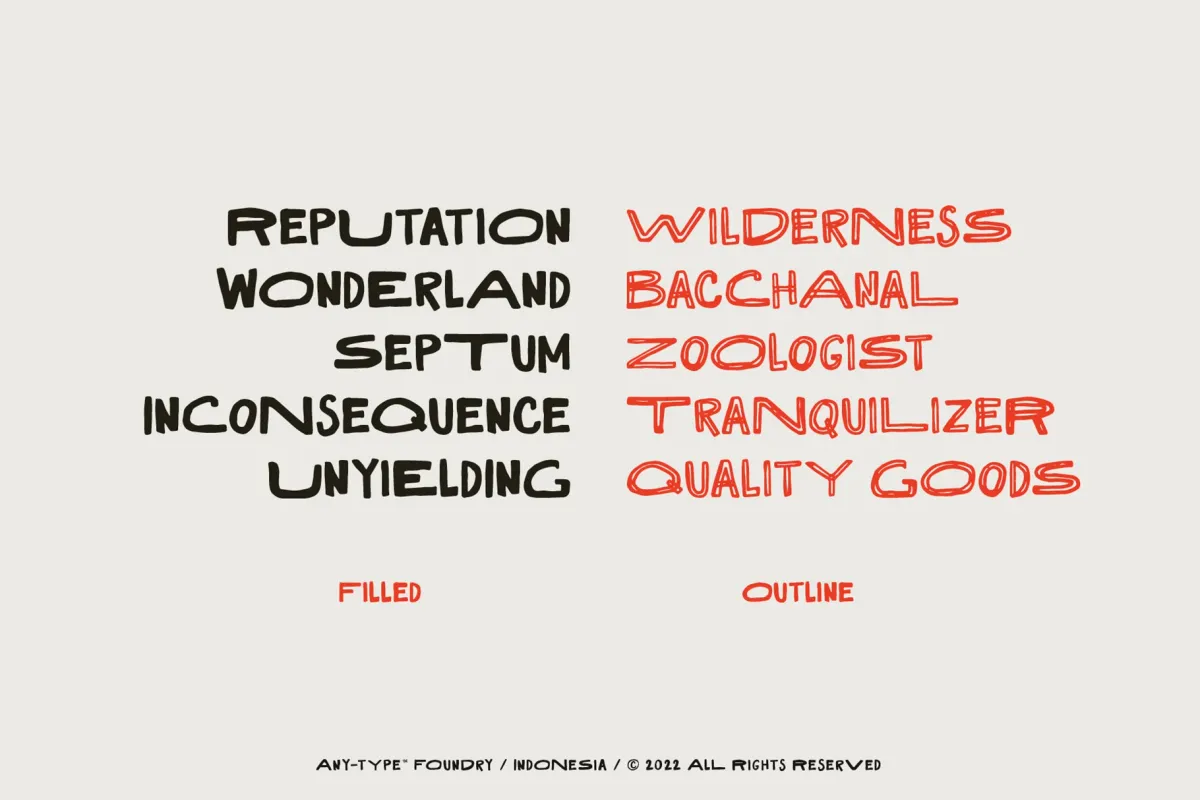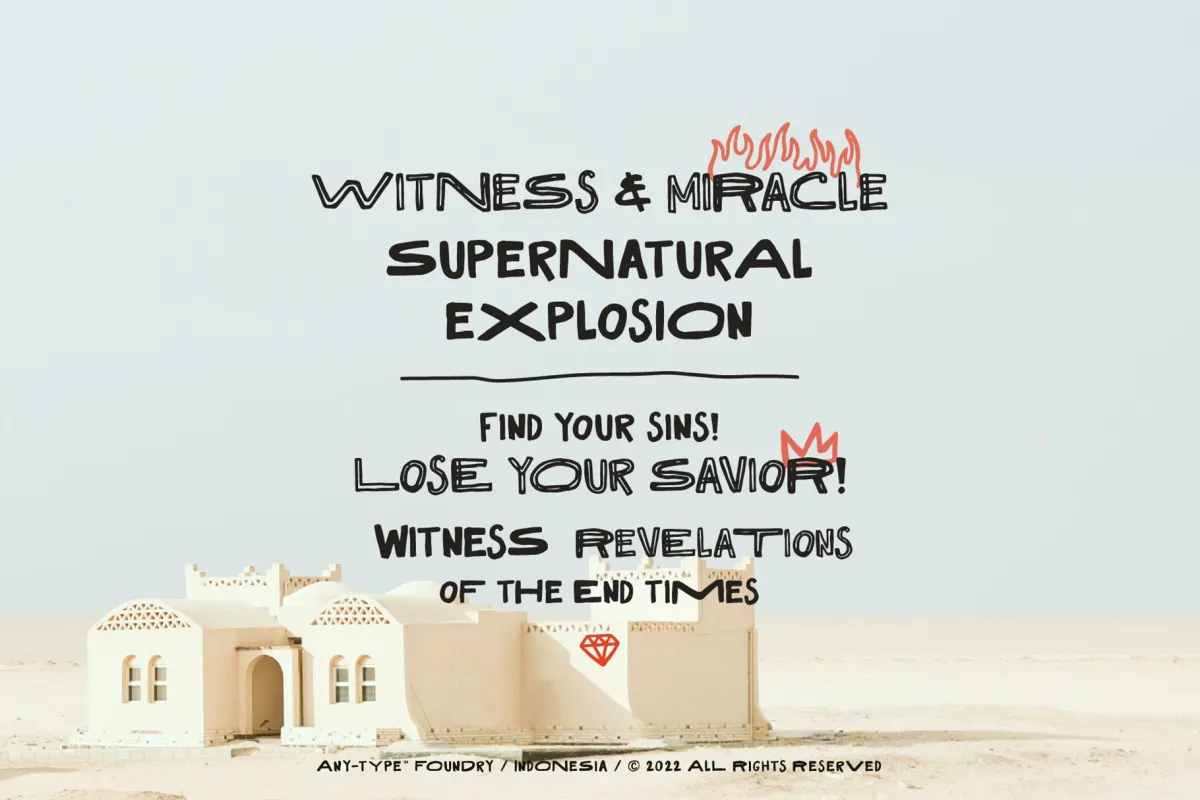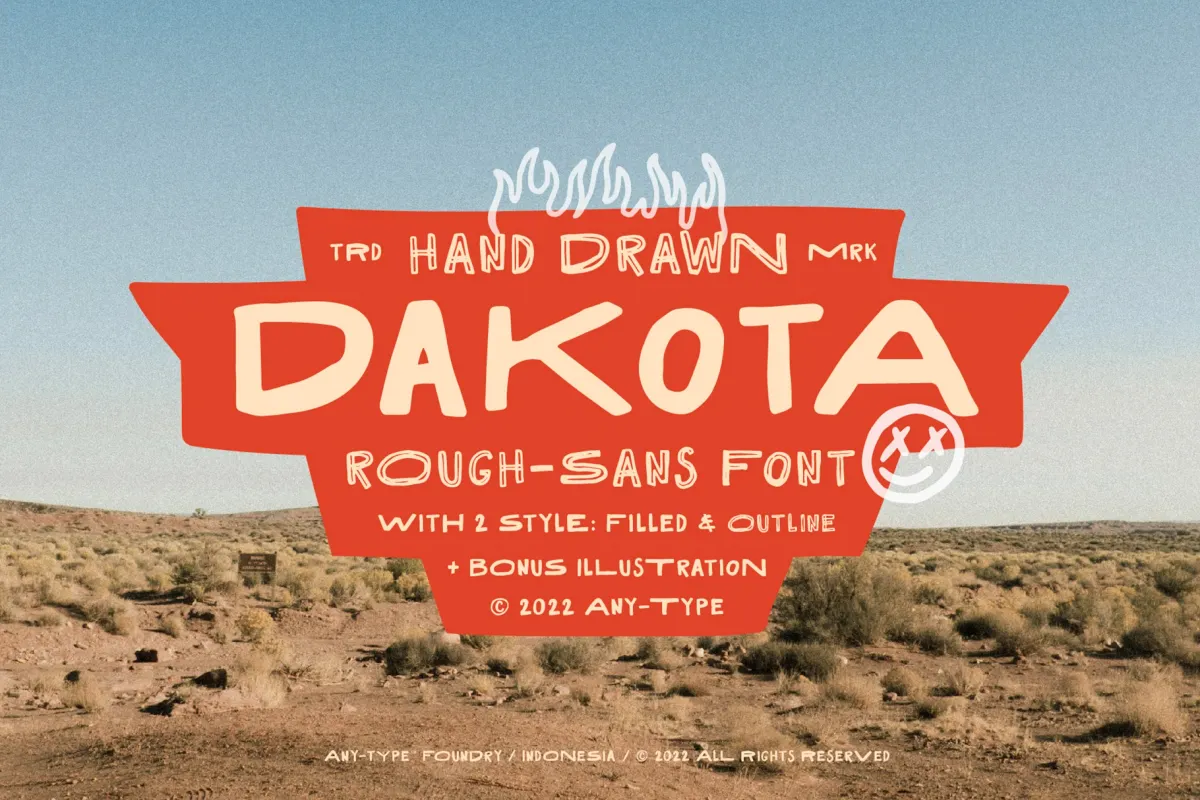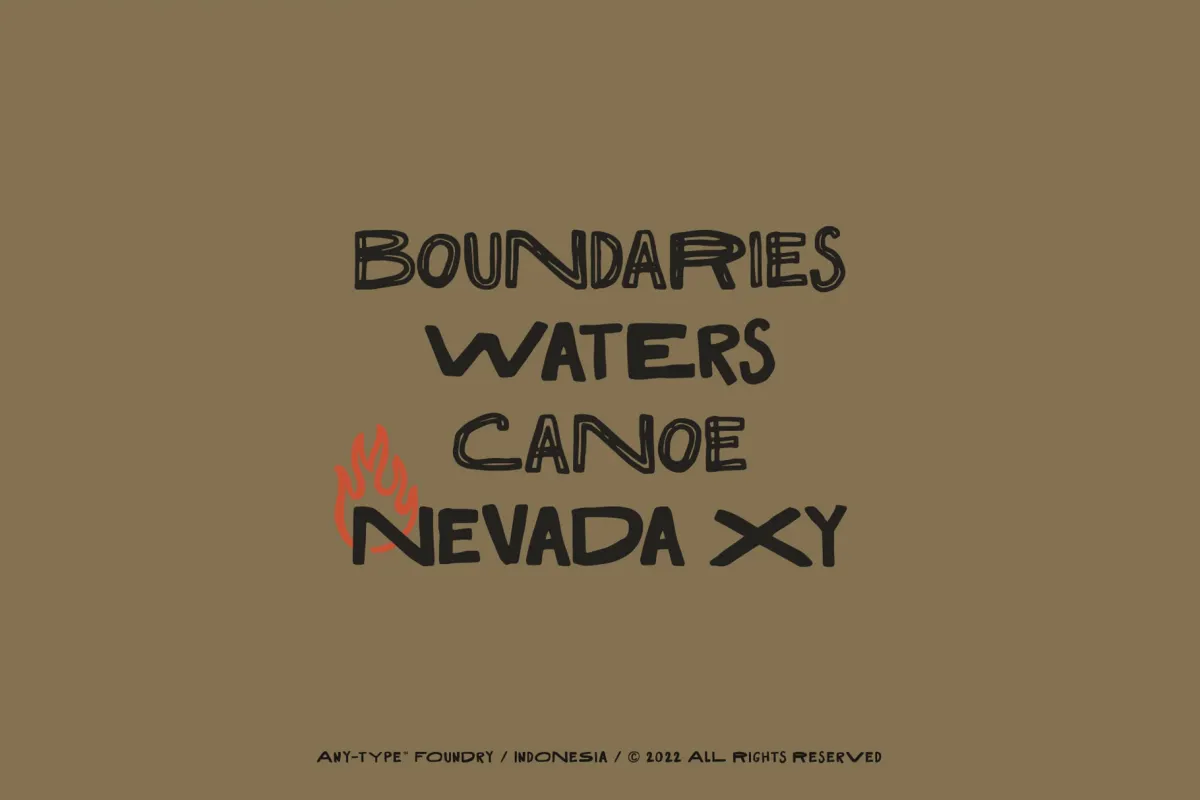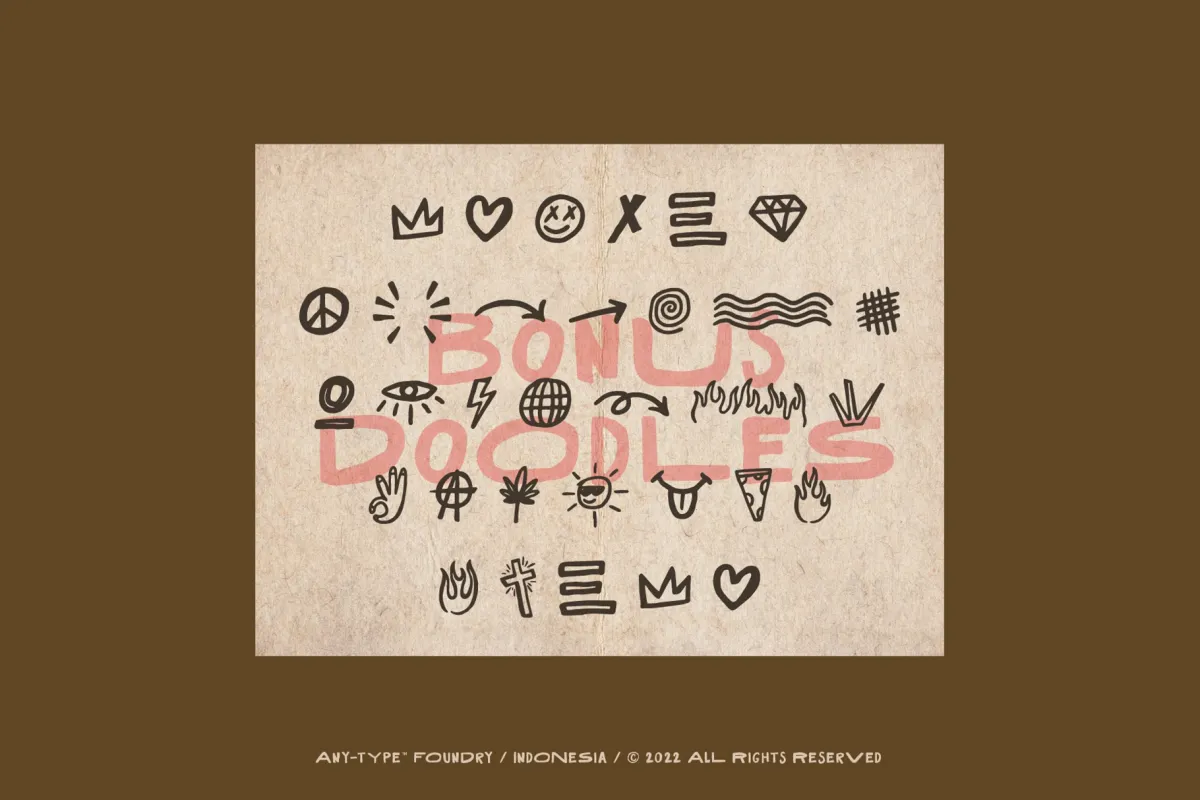
Dakota Rough Sans + Bonus
Dakota is blunt, hand-drawn sans with a restless streak — and this rough-cut all-caps font doesn’t try to clean itself up. The irregular curves and off-kilter letterforms give it the scuffed, road-worn charm of signage spotted in desert towns. It comes in two styles — filled and outline — each with a distinct edge that feels purposefully undone.
It is ideal for branding projects and works seamlessly across album art, coffee packaging, enamel pin design, zines, indie film titles, social content, outdoor goods, and more. The included set of doodles — e.g., abstract symbols and oddball icons — adds extra visual texture and can double as stamps, dividers, or standalone illustrations.